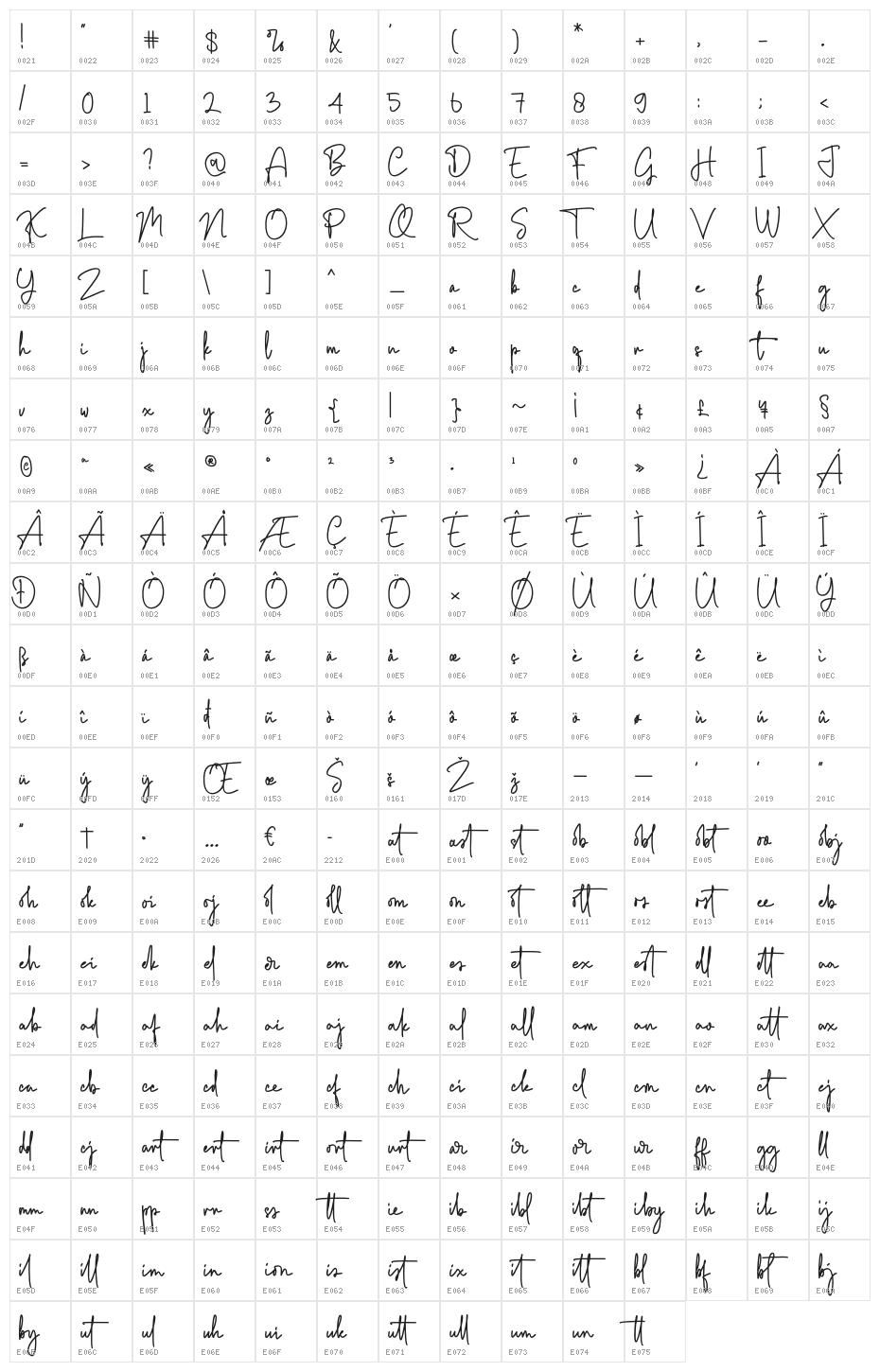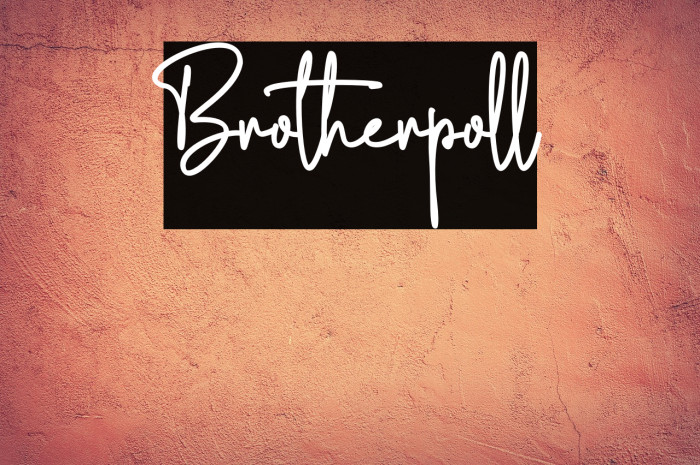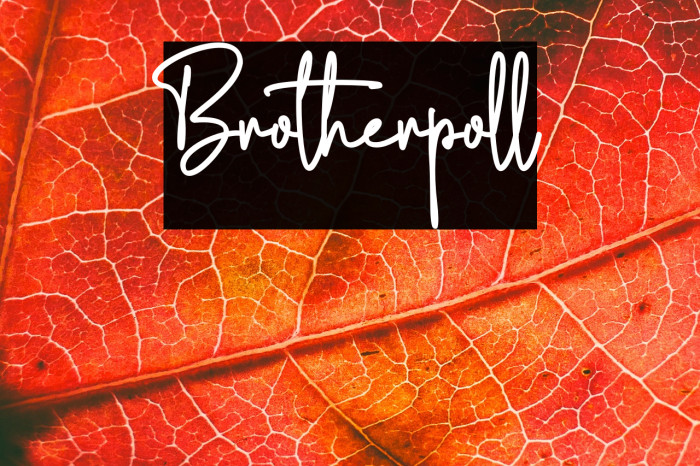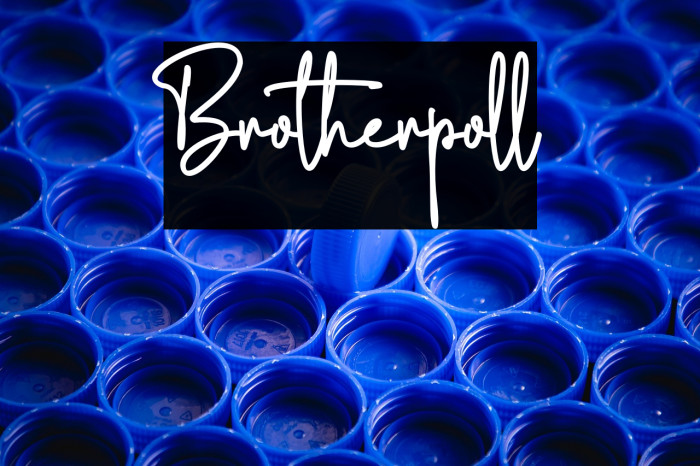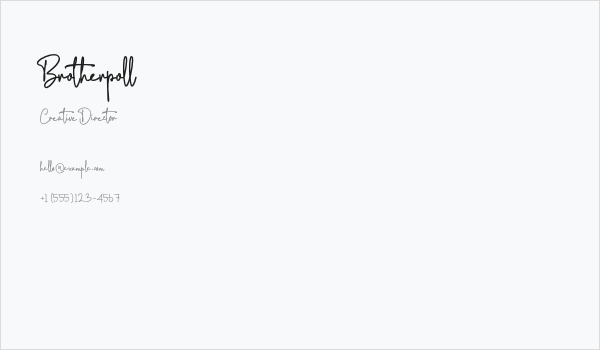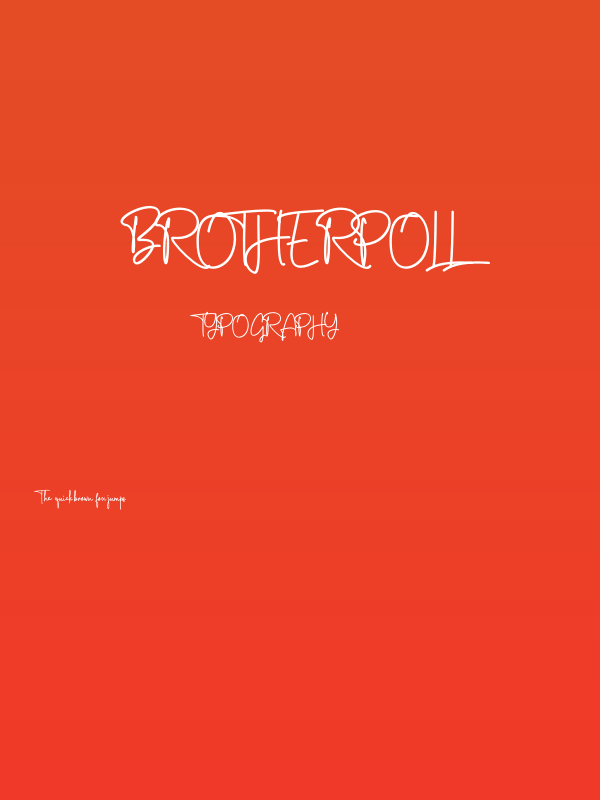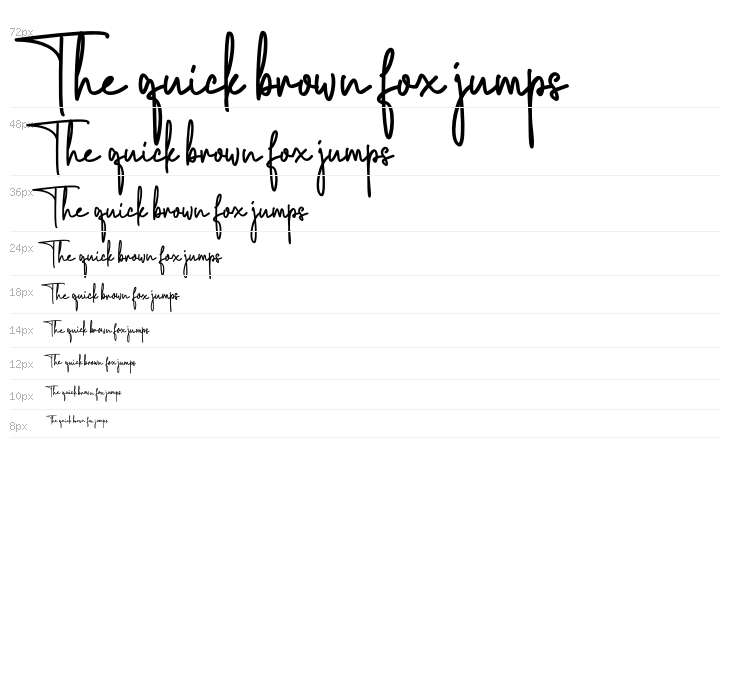
Brotherpoll Font
Brotherpoll Description
This font features a playful and casual handwritten style, characterized by its fluid and dynamic strokes. The uppercase letters are bold and expressive, with a slight slant that adds a sense of movement. The lowercase letters maintain a consistent flow, with some letters extending below the baseline, enhancing its informal appearance. Numbers are clear and legible, matching the overall aesthetic of the font. Special characters are creatively integrated, maintaining the whimsical and approachable feel. The font's organic and spontaneous look makes it ideal for projects that require a personal touch.
| Use Case | Logos, Headlines, Informal Text |
| Proposed Projects | Ideal for greeting cards, invitations, personal branding, and social media graphics. |